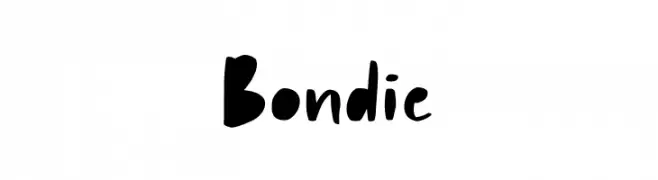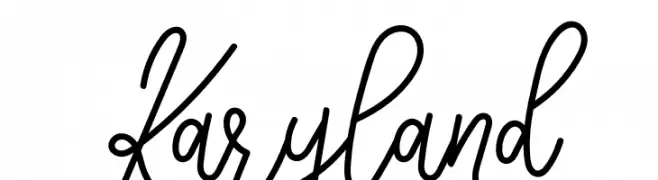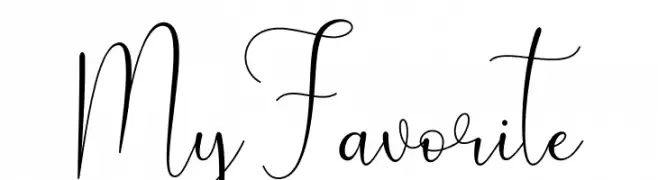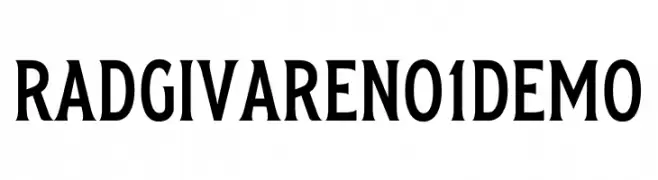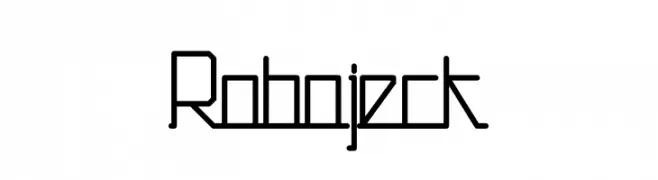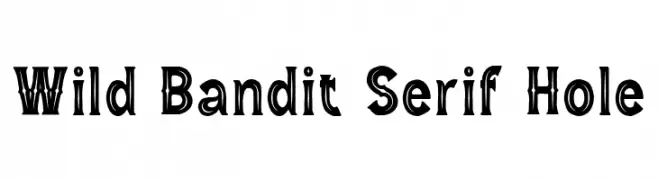
A flowing, elegant script font with a handwritten aesthetic.
A modern, geometric font with a sleek, futuristic design.
A modern, geometric sans-serif font with clean lines and uniform stroke width.
A bold serif font with decorative cutouts, perfect for adventurous and creative designs.
A bold, impactful font with strong strokes and a modern yet classic style.
An elegant, flowing script font with a cursive handwriting style.
An elegant, flowing script font with a modern touch.
A bold, geometric font with a modern, futuristic style.
A bold, playful handwritten font with dynamic strokes and a casual style.
A futuristic, geometric font with angular and linear design.